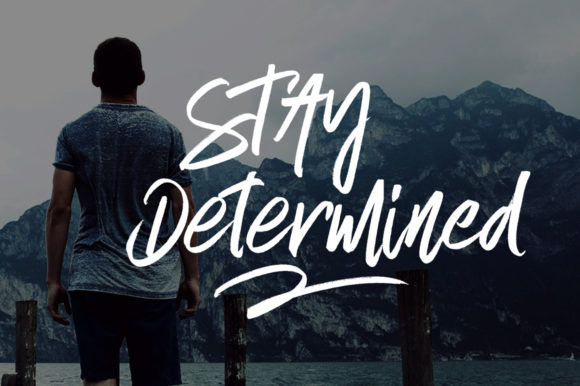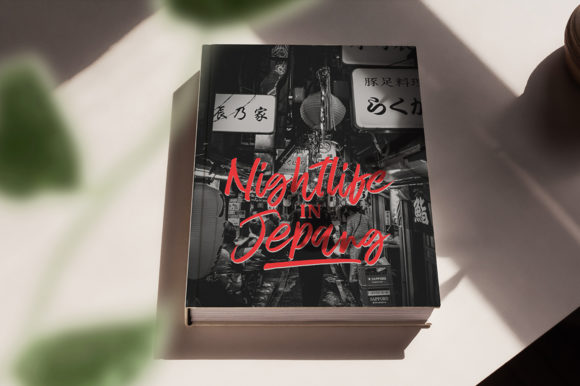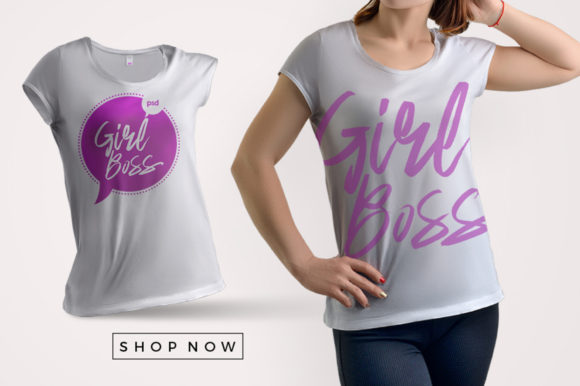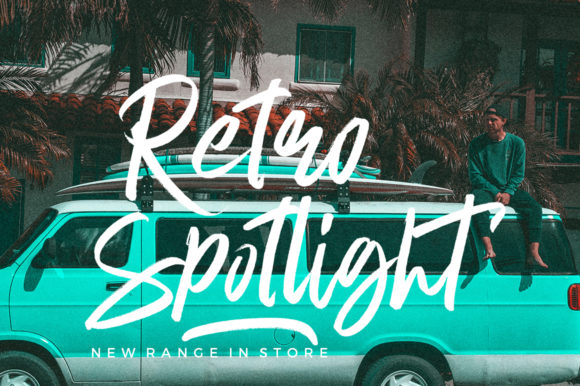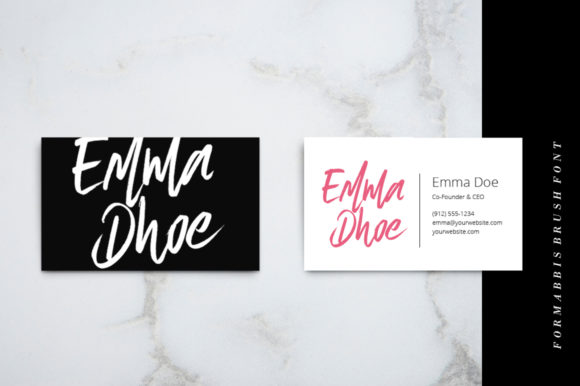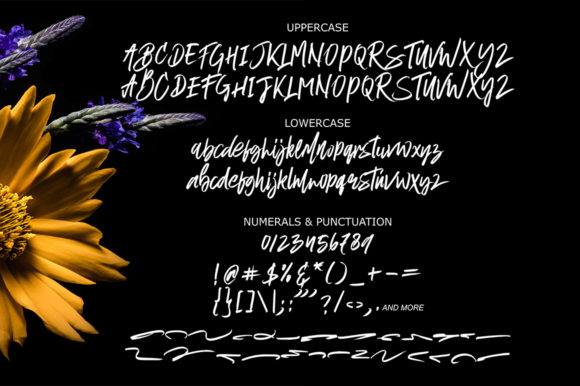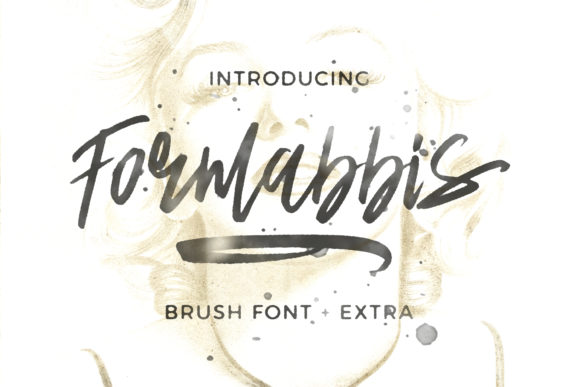
Introducing Formabbis Font: Elevate Your Handwritten Designs with Ease
Are you a designer or crafter looking for a unique and elegant way to add a personal touch to your projects? Look no further than the Formabbis Font, a set of 2 handmade pen markers designed to be combined perfectly. This innovative tool allows you to create amazing handwritten designs with ease, making it a must-have for anyone looking to add a touch of sophistication to their work.
What is Formabbis Font?
The Formabbis Font is a carefully crafted set of 2 handmade pen markers that are designed to work together seamlessly. This allows you to create beautiful, handwritten designs that are both elegant and eye-catching. Whether you’re a seasoned designer or a crafty DIY enthusiast, the Formabbis Font is the perfect tool for adding a personal touch to your projects.
Key Features of Formabbis Font
- Handmade pen markers: The Formabbis Font features 2 handmade pen markers that are carefully crafted to produce a unique and elegant line.
- Designed to be combined perfectly: The two pen markers are designed to work together seamlessly, allowing you to create beautiful handwritten designs with ease.
- Bonus swash set: The Formabbis Font also includes a bonus swash set, ideal for giving your text the final touch of elegance.
Benefits of Using Formabbis Font
So why choose the Formabbis Font for your design projects? Here are just a few benefits of using this innovative tool:
- Add a personal touch: The Formabbis Font allows you to add a personal touch to your projects, making them stand out from the crowd.
- Elegant and sophisticated: The handmade pen markers produce a beautiful, elegant line that is perfect for adding a touch of sophistication to your designs.
- Ease of use: The Formabbis Font is easy to use, even for those with limited design experience.
- Versatile: The Formabbis Font can be used for a wide range of design projects, from invitations and greeting cards to branding and packaging.
Who Can Benefit from Formabbis Font?
The Formabbis Font is perfect for a wide range of designers and crafters, including:
- Graphic designers: Add a personal touch to your designs and create beautiful handwritten elements for your clients.
- Crafters: Use the Formabbis Font to add a touch of elegance to your DIY projects, such as invitations, greeting cards, and scrapbooking.
- Stationery designers: Create beautiful handwritten designs for stationery, journals, and planners.
- Branding and packaging designers: Use the Formabbis Font to add a personal touch to your branding and packaging designs.
Tips and Tricks for Using Formabbis Font
Here are a few tips and tricks for getting the most out of the Formabbis Font:
- Experiment with different combinations: Try combining the two pen markers in different ways to create unique and interesting effects.
- Use the bonus swash set: Add a touch of elegance to your designs with the bonus swash set.
- Practice makes perfect: Don’t be afraid to experiment and practice with the Formabbis Font to get a feel for how it works.
| Font Name | Formabbis Font |
| Author | Picatype Studio |
The Formabbis Font is a unique and innovative tool that allows designers and crafters to create beautiful handwritten designs with ease. With its handmade pen markers, bonus swash set, and ease of use, it’s the perfect addition to any design project. Whether you’re a seasoned designer or a crafty DIY enthusiast, the Formabbis Font is a must-have for adding a touch of elegance and sophistication to your work.